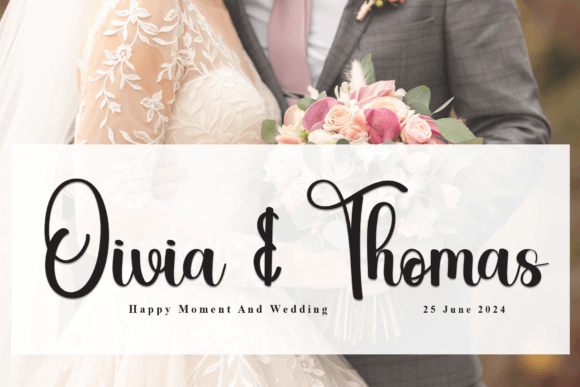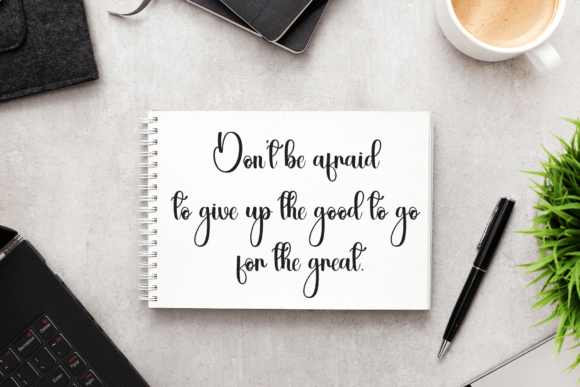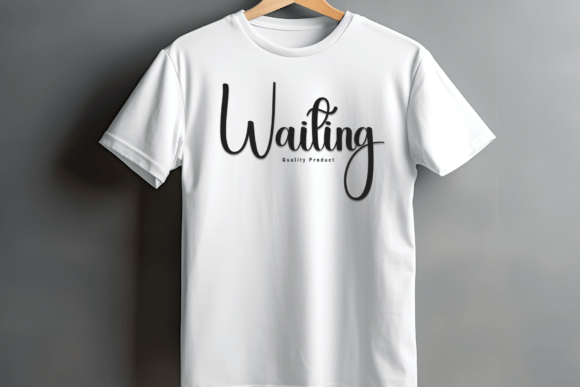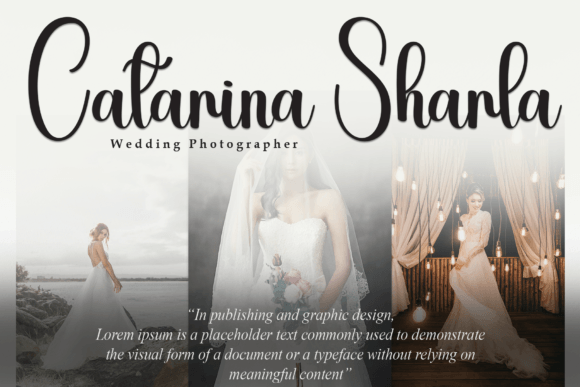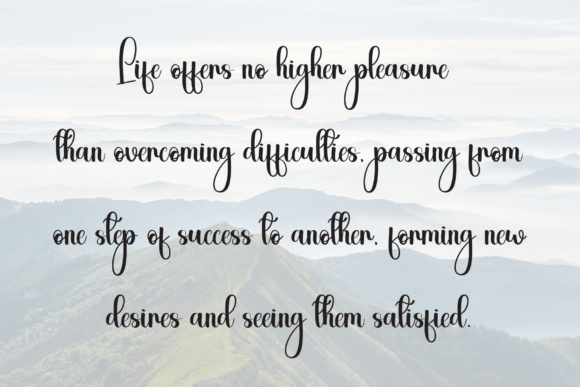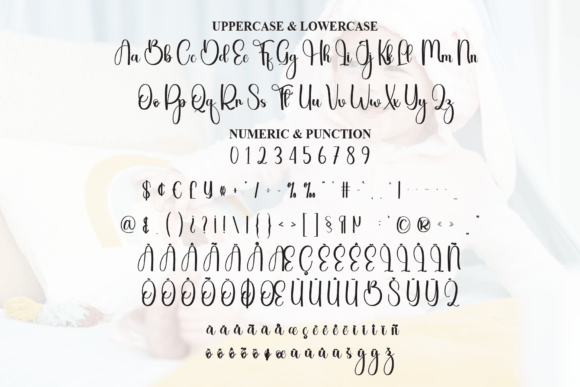
Discover the Joy of Handwritten Charm with Babyday Font
Have you ever sat down with a cup of coffee, a blank page, and a blank mind, only to find yourself scribbling away in a beautiful handwritten script that brings a smile to your face? That’s exactly what happens when you work with the Babyday Font – a charming and amiable handwritten display font that exudes a delightful personality.
Designed to add a sprinkle of joy to your creative works, Babyday Font is the perfect choice for crafting enchanting wedding invitations, captivating cards, or any design project that requires a touch of whimsy. Its tender and entertaining characters make it a valuable asset for designers looking to infuse their designs with a playful allure.
Babyday Font Key Features
- Character Set: This font features a comprehensive set of characters, including uppercase and lowercase letters, numbers, and special characters, making it suitable for a wide range of applications.
- Unique Characteristics: The Babyday Font has a distinctive, cursive design that is both playful and elegant, making it perfect for creating a warm and inviting atmosphere in various design projects.
Design Review: Babyday Font
Overall, I think Babyday Font is a charming and whimsical font that can add a touch of playfulness to any design project. ✨ The font’s rounded edges and gentle curves create a soothing and childlike atmosphere, making it perfect for designs related to babies, kids, or family-oriented themes. ✨ The font’s versatility also makes it suitable for use in various contexts, from branding to editorial content.
One of the things that I appreciate about Babyday Font is its legibility. ✨ The font is clear and easy to read, even at smaller sizes, which is essential for any font intended for use in body text or titles. Additionally, the font’s friendly feel makes it an excellent choice for titles, headings, or any other design element where you want to convey a sense of approachability.
However, I do have a few reservations about Babyday Font. ⚠️ Firstly, the font may not be the best choice for formal or professional designs, as its playful nature might not be suitable for more serious or corporate contexts. ⚠️ Additionally, the font’s lack of bold or italic variations may limit its use in certain situations where a bold or italic font is required.
Overall, I think Babyday Font is a lovely and versatile font that can add a touch of whimsy to any design project. While it may not be suitable for all types of designs, it’s perfect for projects that require a friendly and approachable feel.
Recommendations
- Use Babyday Font for designs related to babies, kids, or family-oriented themes.
- Choose Babyday Font for titles, headings, or other design elements where you want to convey a sense of approachability.
- Avoid using Babyday Font in formal or professional designs.
- Consider using a different font for bold or italic text, as Babyday Font does not have these variations.